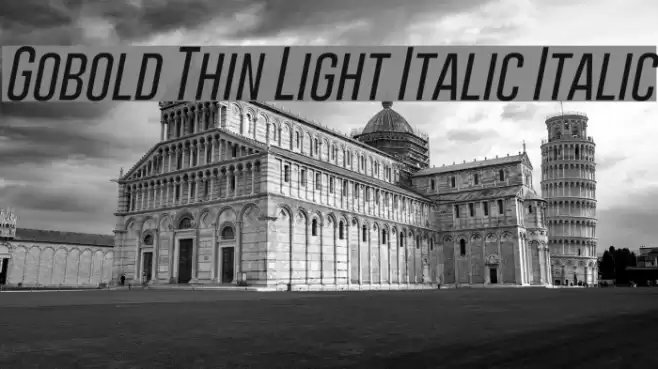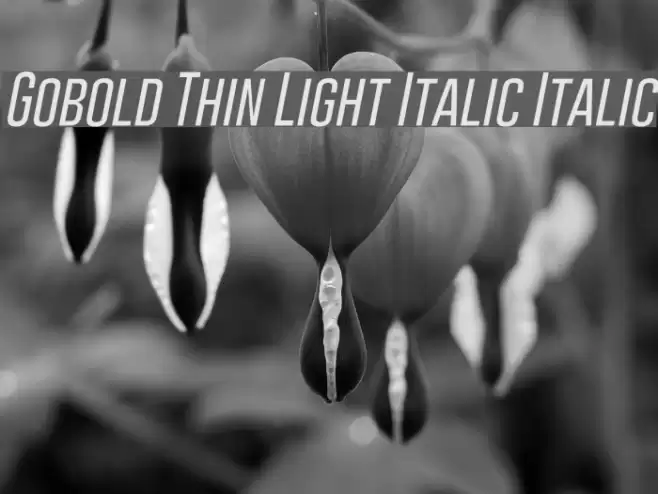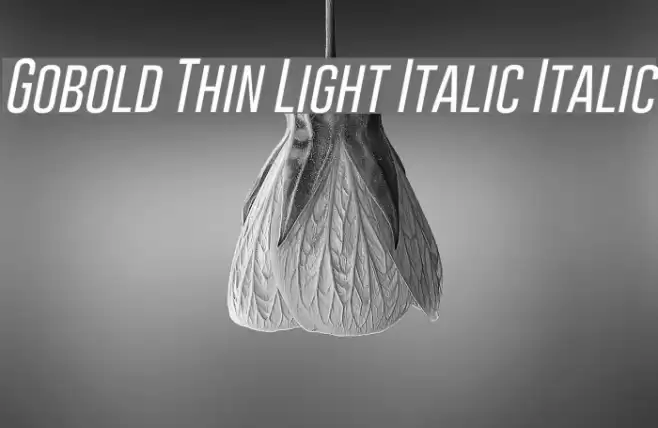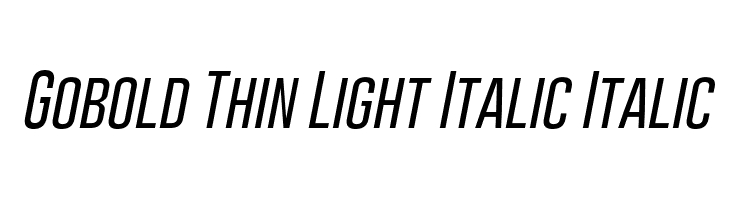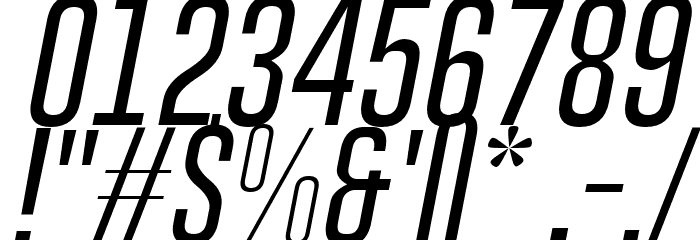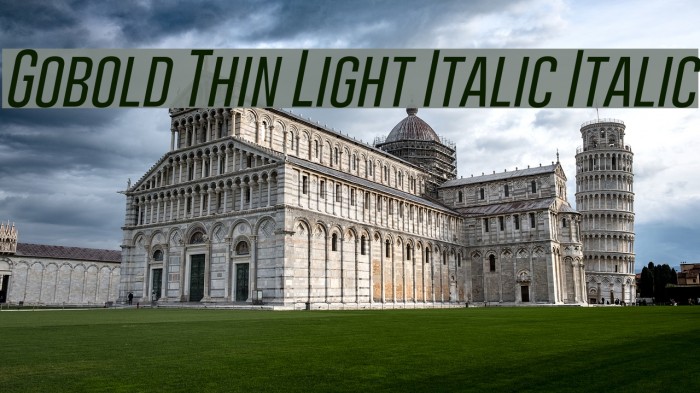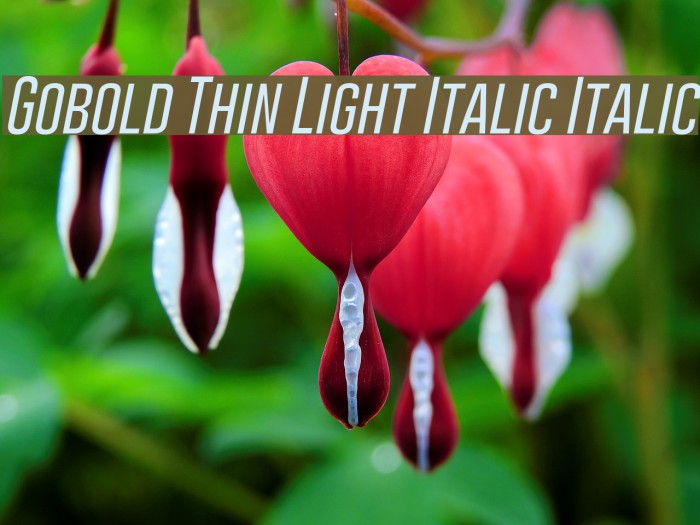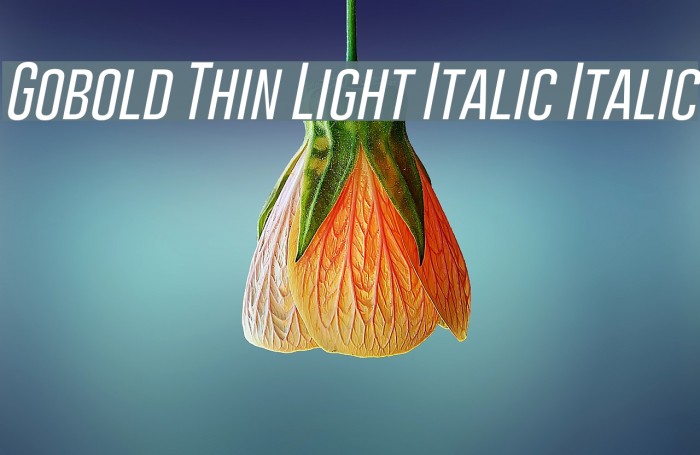
Gobold Thin Light Italic Italic Font
Gobold Thin Light Italic Italic Description
This font features a sleek, modern design with a distinctly italicized form, giving it a dynamic and forward-leaning appearance. The characters are elongated and condensed, contributing to a streamlined and sophisticated look. The strokes are thin, yet maintain a consistent weight throughout, providing a uniform and cohesive aesthetic. The font's clean lines and minimalistic style make it suitable for contemporary design projects. Its italic nature adds a sense of motion and elegance, making it ideal for applications where a touch of sophistication is desired.
A sleek, modern, and italicized font with thin, consistent strokes and a condensed form from Uncategorized fonts.
- Proposed Projects: Ideal for modern branding, advertising, fashion magazines, and digital media where a sleek and sophisticated look is desired.
- Weight: Light
- Use Case: Headlines, Logos, Advertising